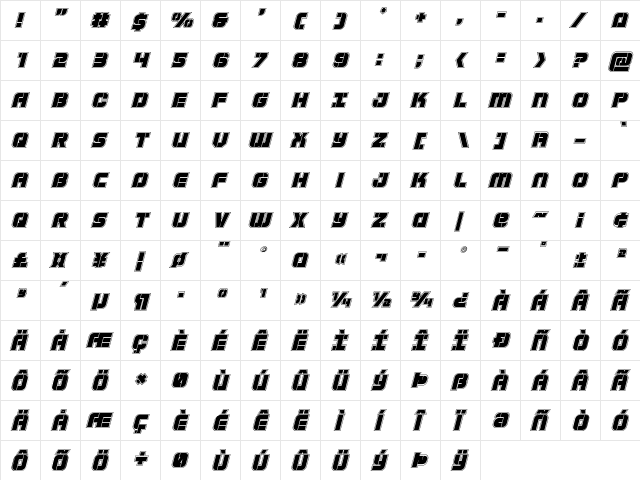
Super Submarine Academy Italic Italic
Design Context for Super Submarine Academy Italic Typeface
Super Submarine Academy Italic offers clean, dependable letterforms without strong stylistic allegiance, making it a practical choice for designers who need flexibility. The slanted form adds forward momentum and visual energy.
Pro Tip: Use Super Submarine Academy Italic for emphasis, pull quotes, and subheadings where its slanted energy can add rhythm to the layout.